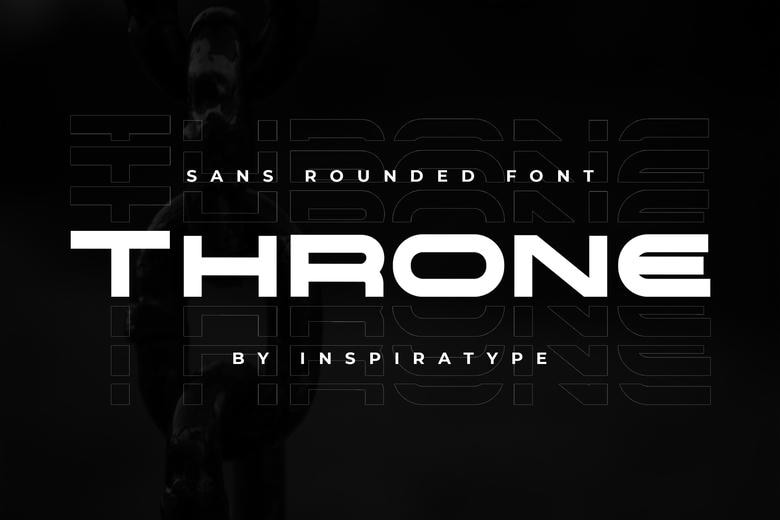
Throne Rounded Sans Font
Throne is a unique sans serif font with a futuristic look! It will elevate a wide range of designs such as posters, logos, magazines, uppercase, lowercase, numerals, punctuations and so many variations on each character include OpenType alternates, common ligatures and also additional swash to let you customize your designs. Perfect to use for Logotype, Letterhead, Poster, Apparel Design, Label and etc.
Throne Rounded Sans Serif Font